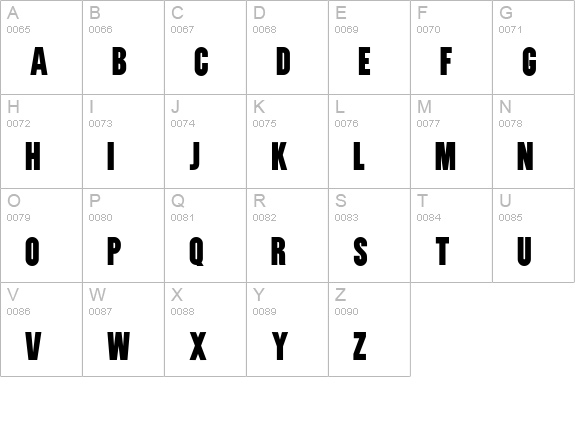
Utility BoldCondensed Font Details
Utility BoldCondensed is a bold and condensed font that exudes strength and modernity. Its sleek and clean design makes it the perfect choice for headlines, titles, and display purposes. With its strong and condensed letterforms, this font commands attention and adds a touch of sophistication to any project. This versatile typeface comes in a range of weights, allowing you to create dynamic and eye-catching designs. Whether you are designing a logo, a poster, or a website, Utility BoldCondensed will make your text stand out and leave a lasting impression. One of the best things about Utility BoldCondensed is that it is available for free download at FontsMarket.com. You can easily access this font and add it to your collection without any cost. This means that you can use Utility BoldCondensed in any personal or commercial project without worrying about licensing fees. Another advantage of choosing Utility BoldCondensed is its wide language support, ensuring that you can use this font in various languages and reach a global audience. Its legibility and boldness make it readable even at smaller sizes, making it suitable for print and digital media alike. In conclusion, Utility BoldCondensed is a powerful and versatile font that combines style, strength, and legibility. Its condensed design makes it perfect for creating impactful headlines and titles, while its availability for free download at FontsMarket.com makes it easily accessible to all designers. Add Utility BoldCondensed to your collection today and elevate your designs to new heights.